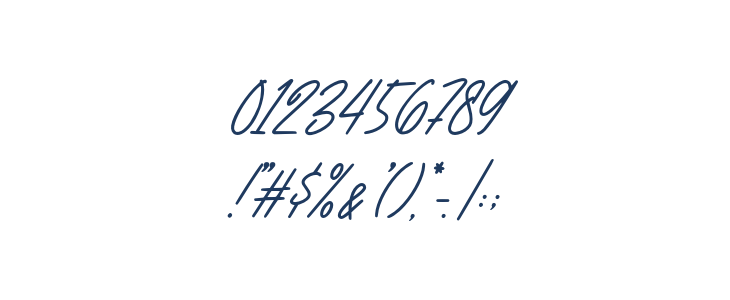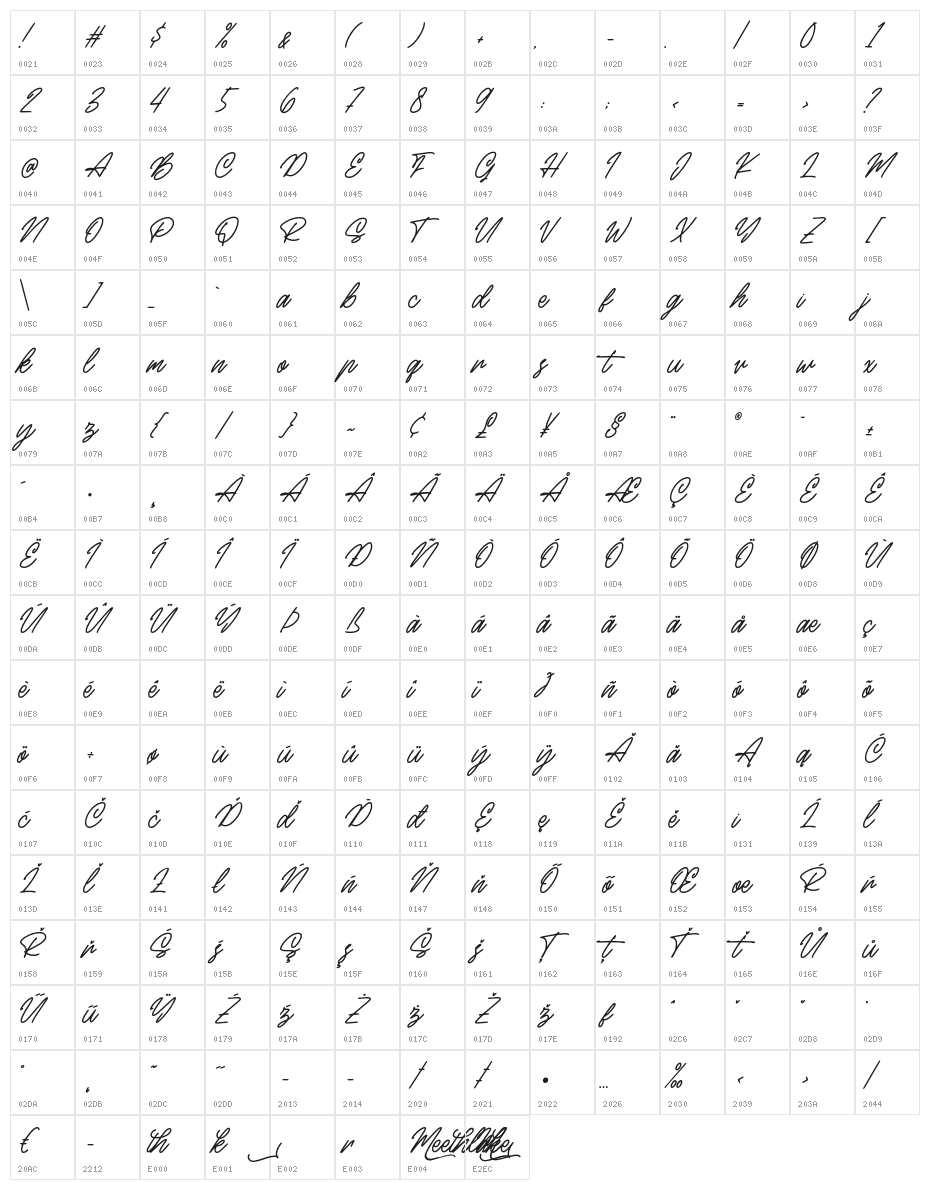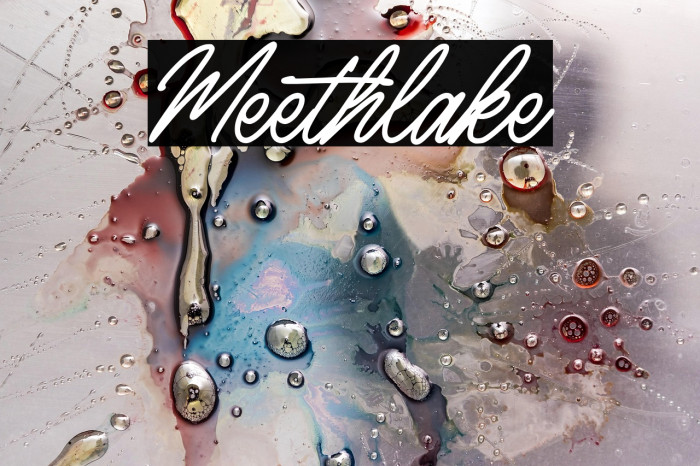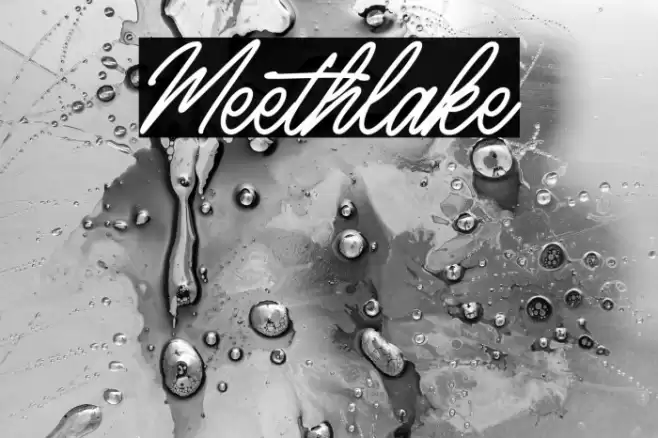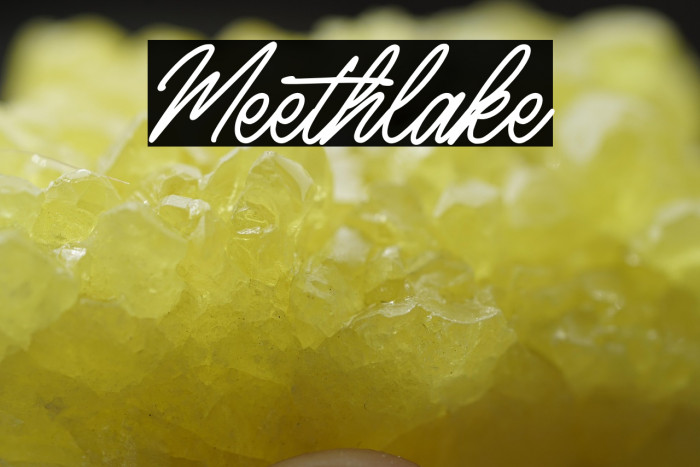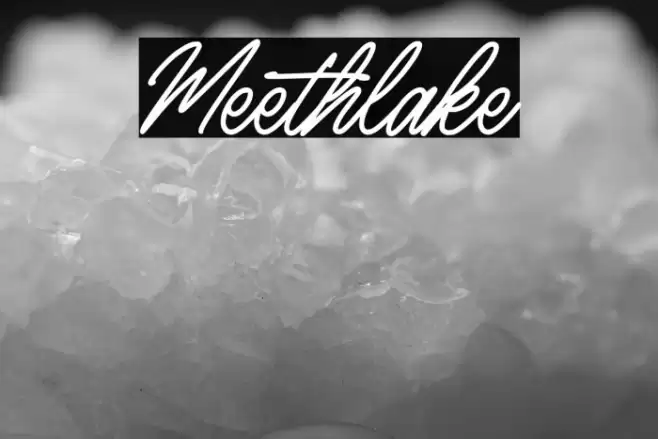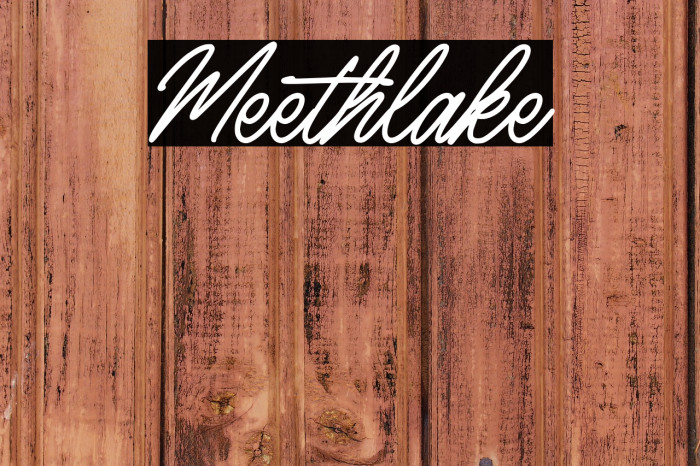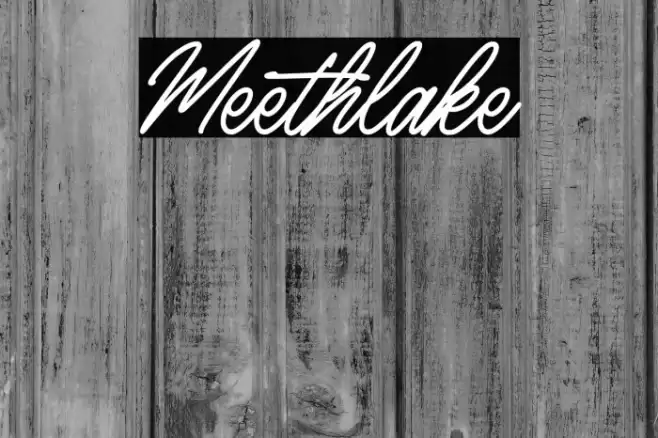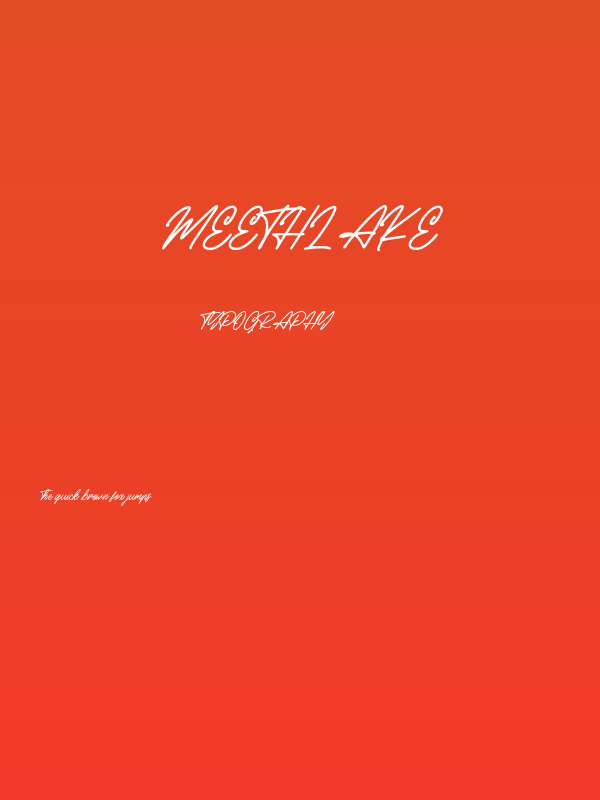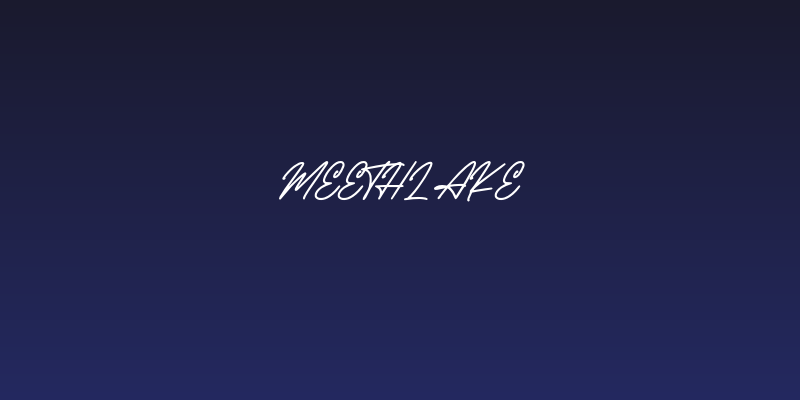
Meethlake Font
Meethlake Description
This font features a dynamic and fluid script style, characterized by its elegant, flowing lines and cursive letterforms. The uppercase letters exhibit a graceful slant with smooth, connected strokes, while the lowercase letters maintain a consistent rhythm and balance. The numerals and special characters are crafted with the same attention to detail, ensuring a cohesive appearance throughout. The overall design exudes a sense of sophistication and charm, making it suitable for projects that require a personal or artistic touch.